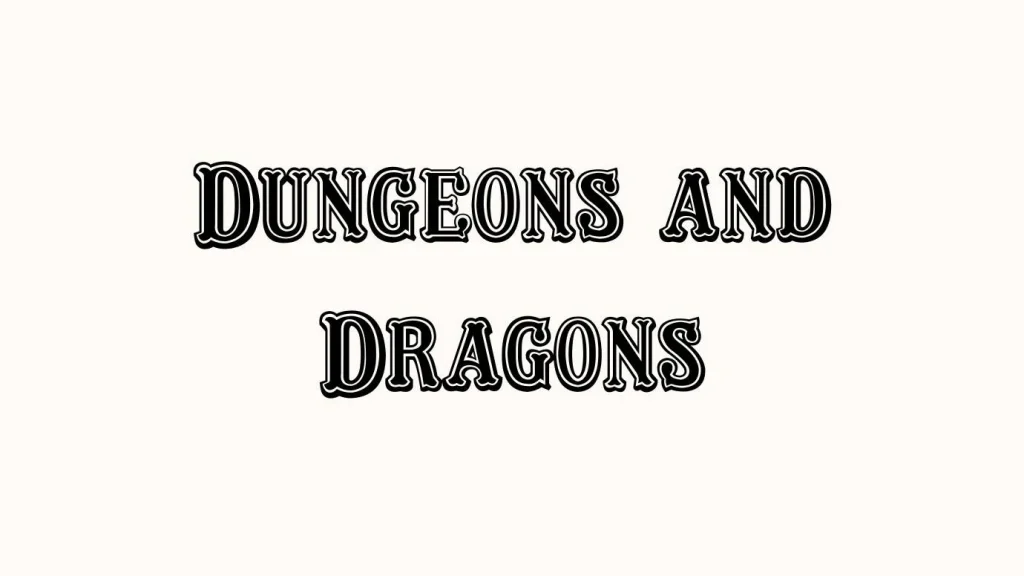
Dungeons and Dragons Font can make unique and attractive designs for your project. Many people have already used this font in their projects and got appreciation from the viewer. Martin Wait created this style.
In this typeface, each character has a beautiful design to create stunning content. The free version is also available here on our website. The 106 characters in this typeface, have 78 glyphs, and include alphabets, digits, and special characters.
You can import this style in a CSS file to create fun designs. This typeface has great readability. The font is beautifully designed and has an attractive appearance it also displays flexibly formed letters due to their strong curves.
If you are looking for a font with lots of traits, this lettering style will be a flawless choice. To make a design that is both exclusive and attention-grabbing, you can pair this font with vahika font.
What Are the Qualities of Dungeons and Dragons Font?
Advantages of Using Dungeons and Dragons Font
There are many applications for this interesting typeface that can be used. The typeface will primarily provide any design a playful and pleasurable feel. It is using this typeface to create designs that are enjoyable for all users. While using this style you can create art book designs and logo designs.
This typeface cannot be used in every project thus the combination will depend on the needs. This typeface looks fantastic when applied to printing projects for kids because it has a fascinating design. Demon slayer font is the best similar style The disadvantage of this design is that when used in small-size text, the style will not be visible.
Use this typeface to produce stunning designs without putting in a lot of effort, if you want to start generating good t-shirt designs use this style.
Where can I use Dungeons and Dragons Font?
While using this style you can create art book designs and logo designs you can make your website design more beautiful with this design.
What kind of Dungeons and Dragons typeface is it?
Dungeons and Dragons Font is a fancy typeface that has a nice and attractive character set of alphabets.